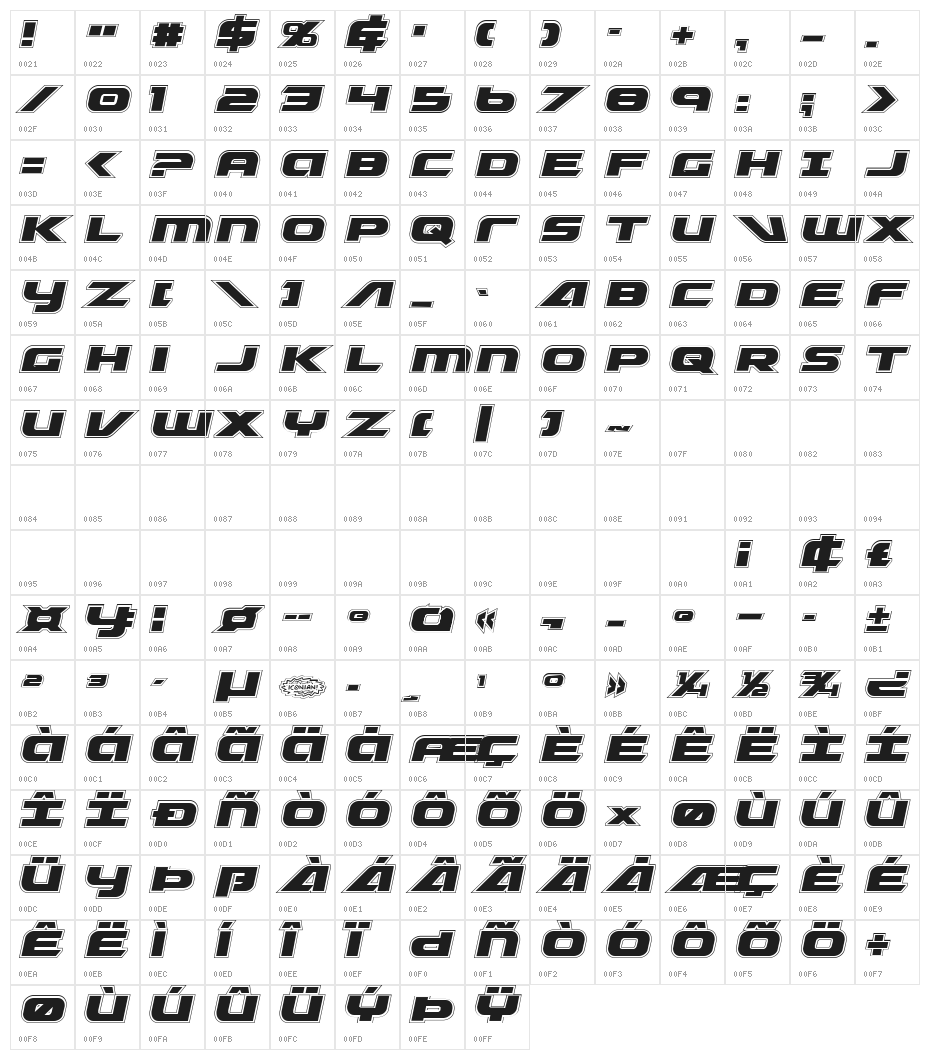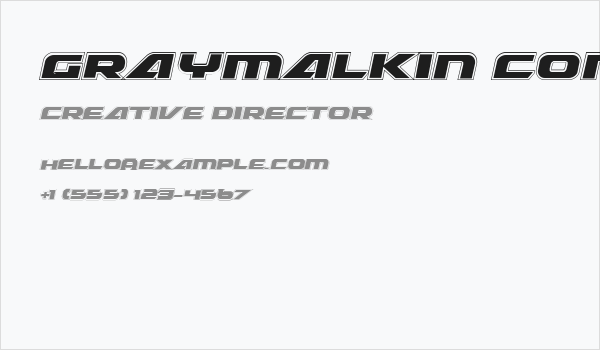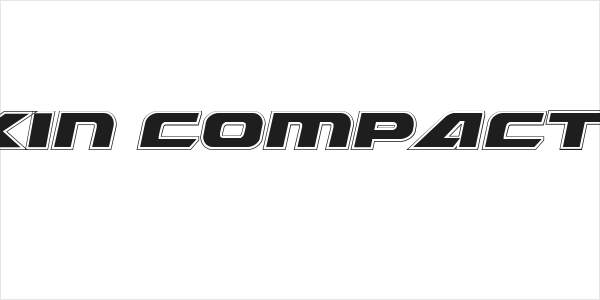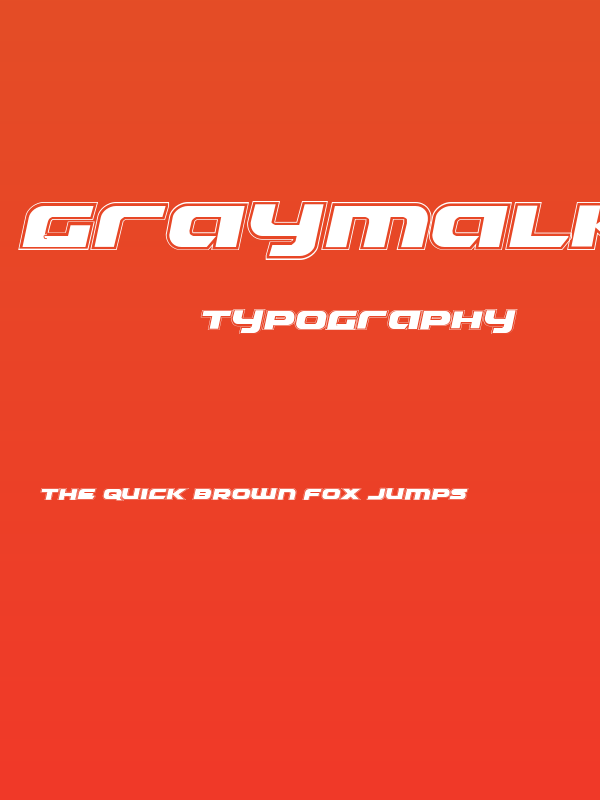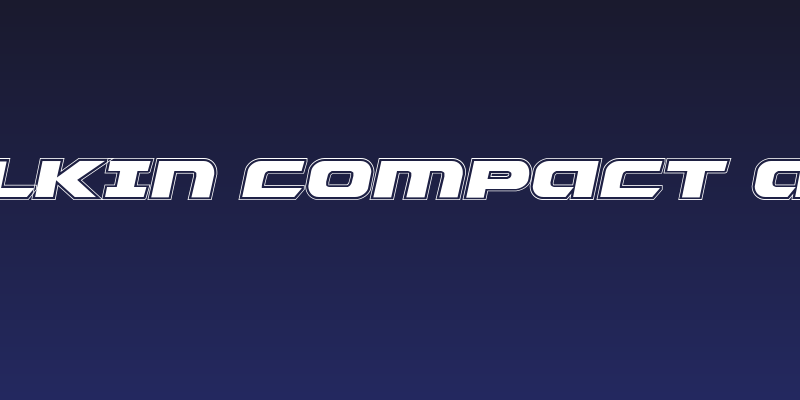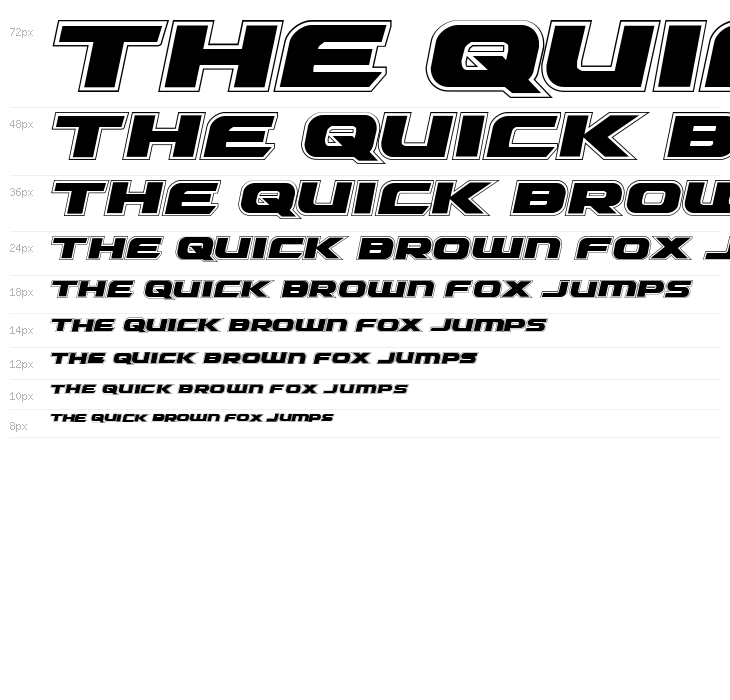
Graymalkin Compact Academy Font
Graymalkin Compact Academy Description
This font features a bold, futuristic design with a distinct geometric style. The characters are outlined with a thick border, giving them a three-dimensional appearance. The uppercase and lowercase letters share a consistent design, with sharp angles and a slightly condensed form. The numerals and special characters maintain the same boldness and style, ensuring uniformity across all glyphs. The font's unique aesthetic makes it suitable for projects that require a modern and dynamic look.
| Proposed Projects | Ideal for sci-fi themed designs, video game titles, technology branding, and modern posters. |